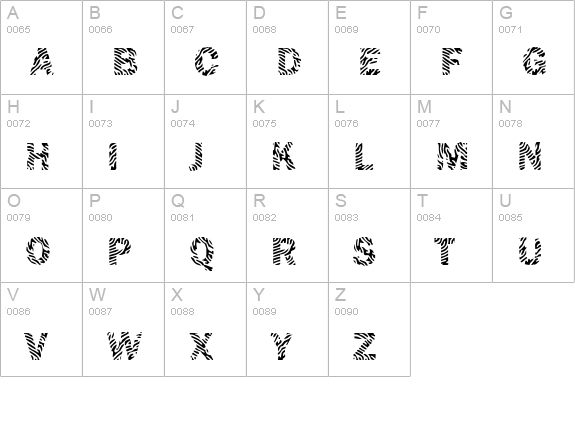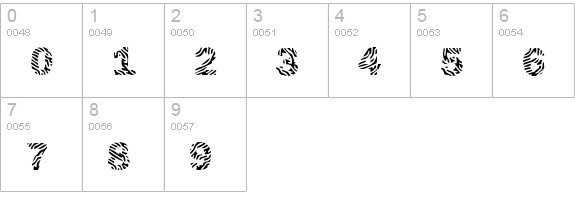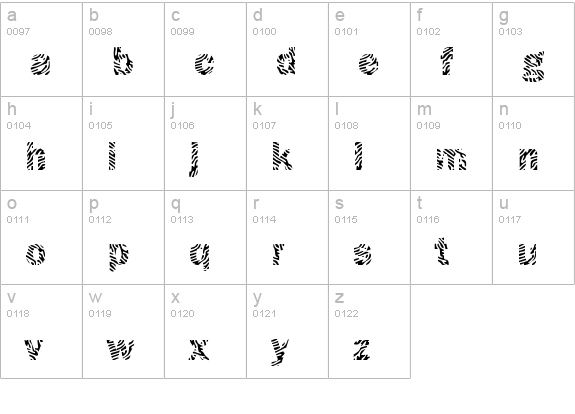
Funky09-Bold is a strong, high-contrast variant in the Funky09 typeface family \xE2\x80\x94 well suited to headlines, attention-grabbing titles, and strong calls-to-action.
Funky09-Bold font is a vibrant and playful display typeface that exudes energy and personality. Its bold and quirky design makes it perfect for eye-catching headlines, posters, logos, and other creative projects. The unique shapes and curves give this font a funky and modern look that will make your designs stand out. Best of all, Funky09-Bold font is available for free download at FontsMarket.com, making it accessible to designers and creatives looking to add a touch of fun and flair to their work. Whether you're working on a branding project, creating a party invitation, or designing a funky t-shirt, this font is sure to bring a fresh and exciting vibe to your designs. Download Funky09-Bold font today and let your creativity shine!